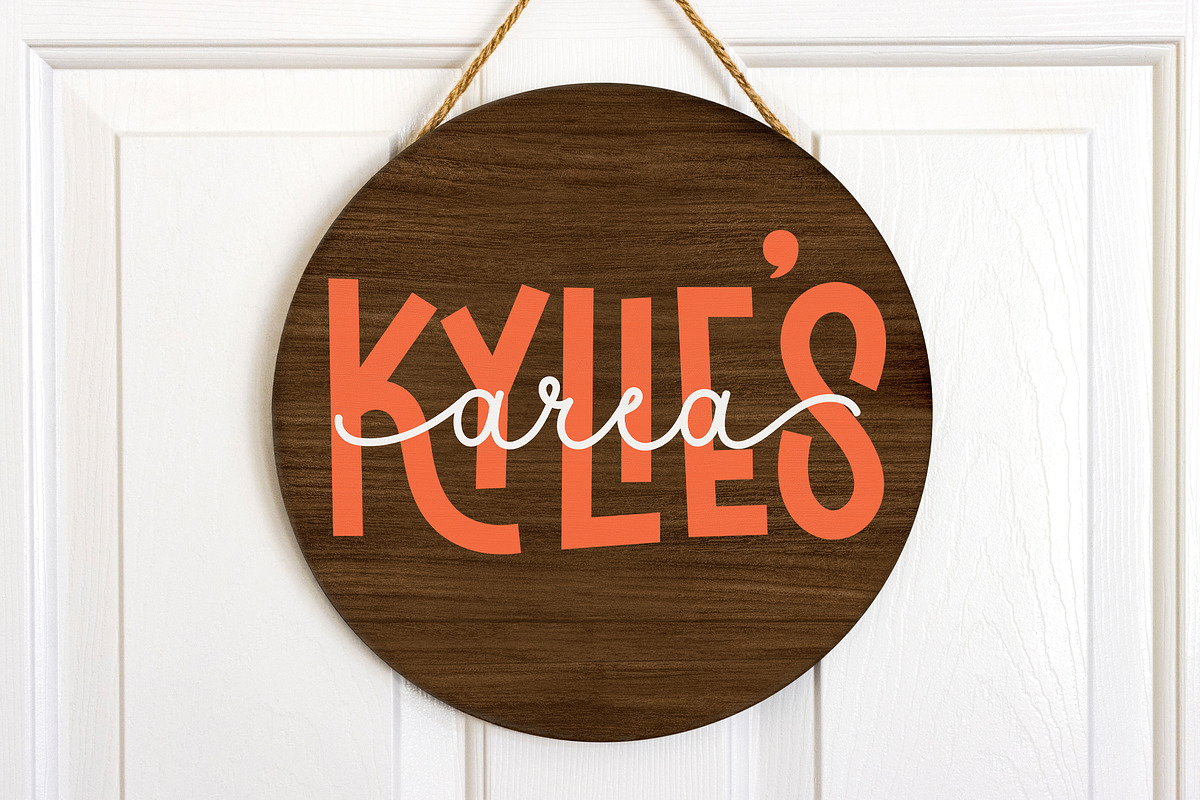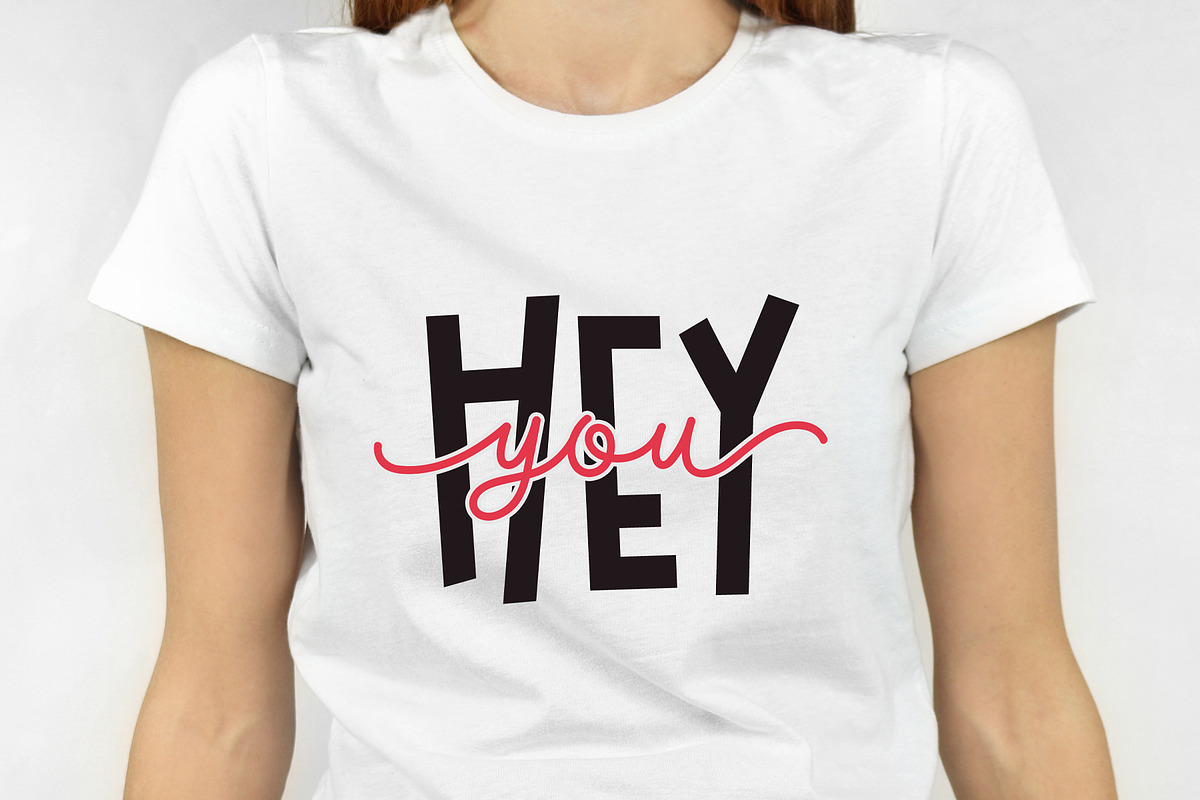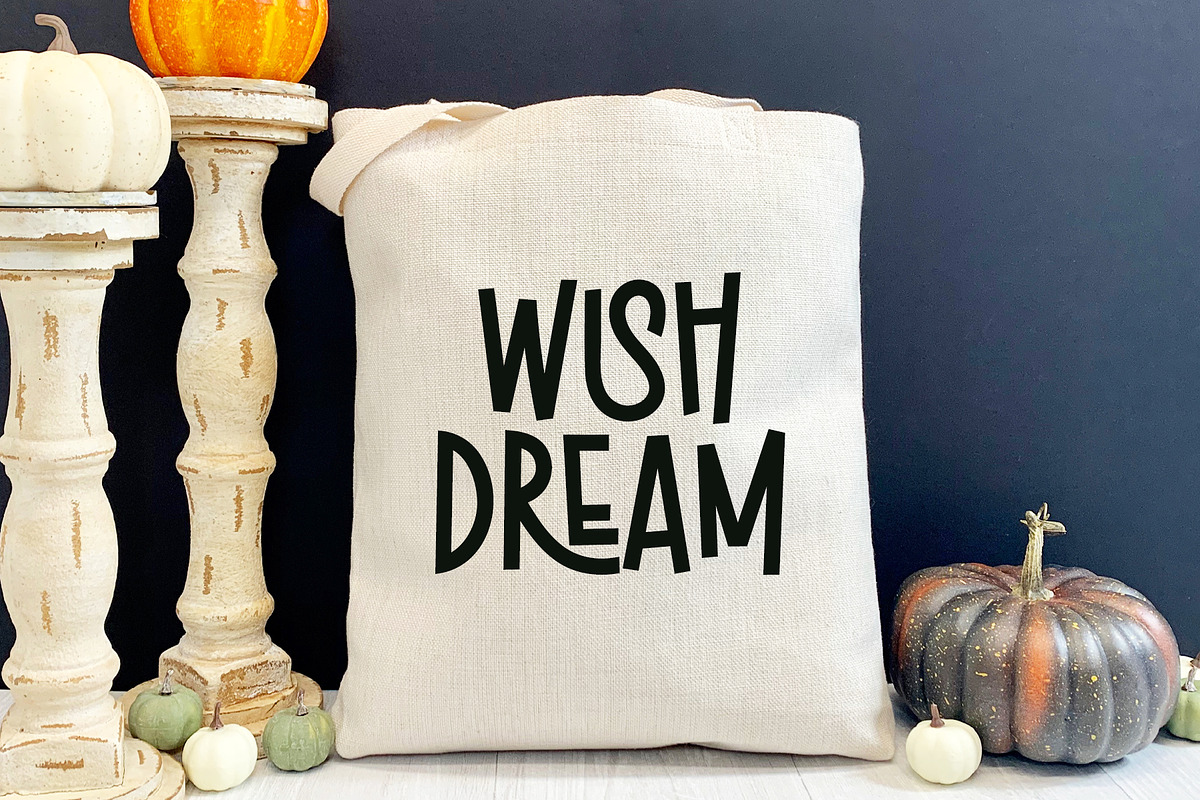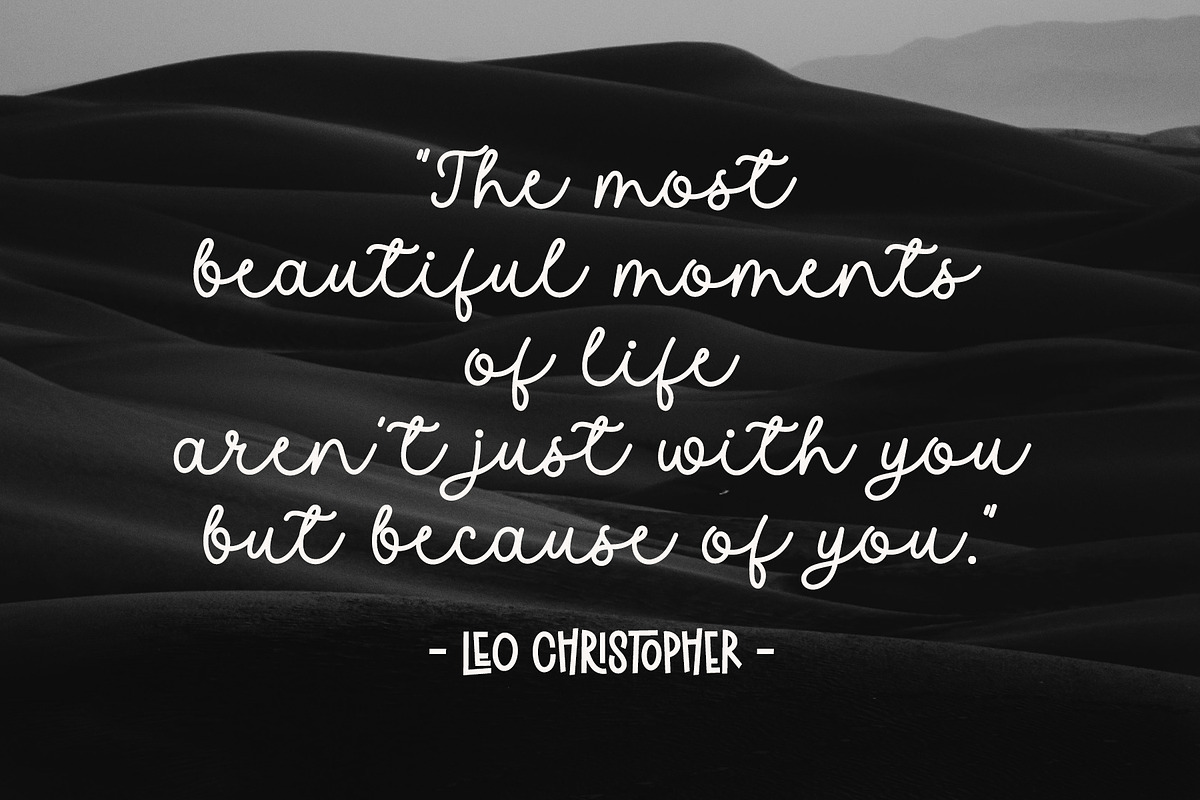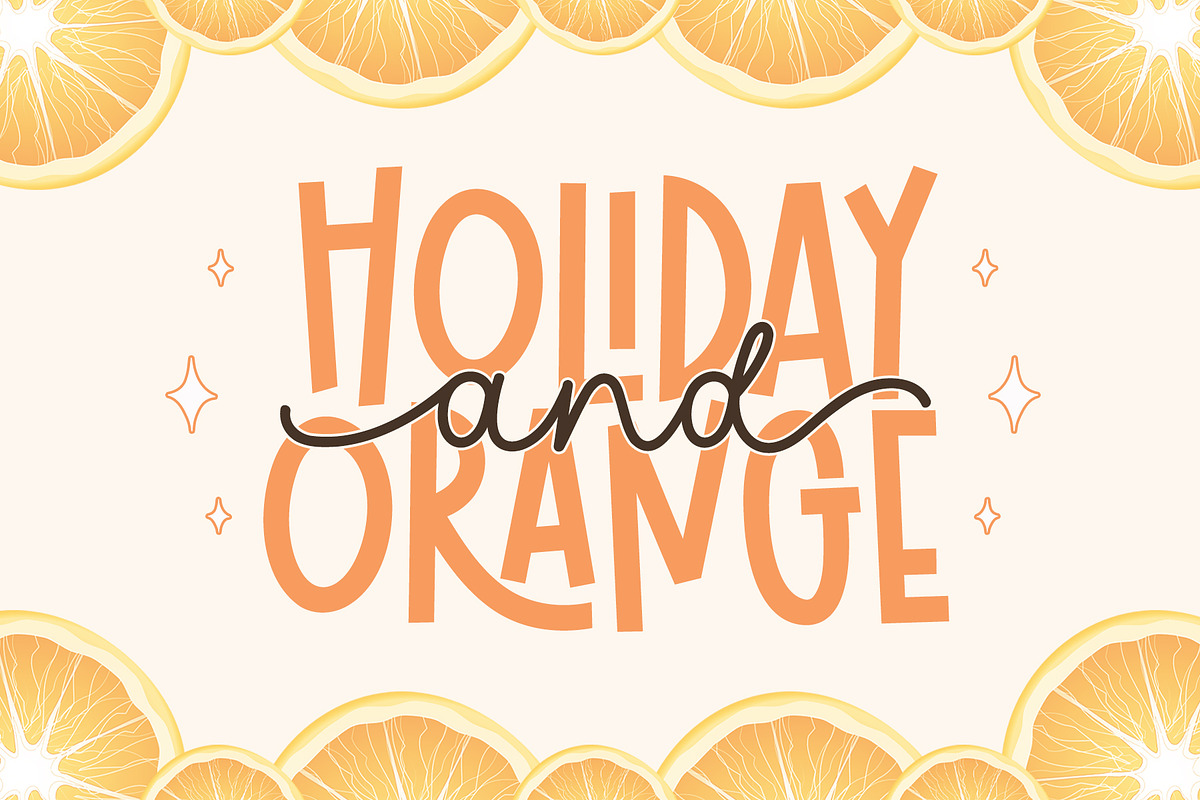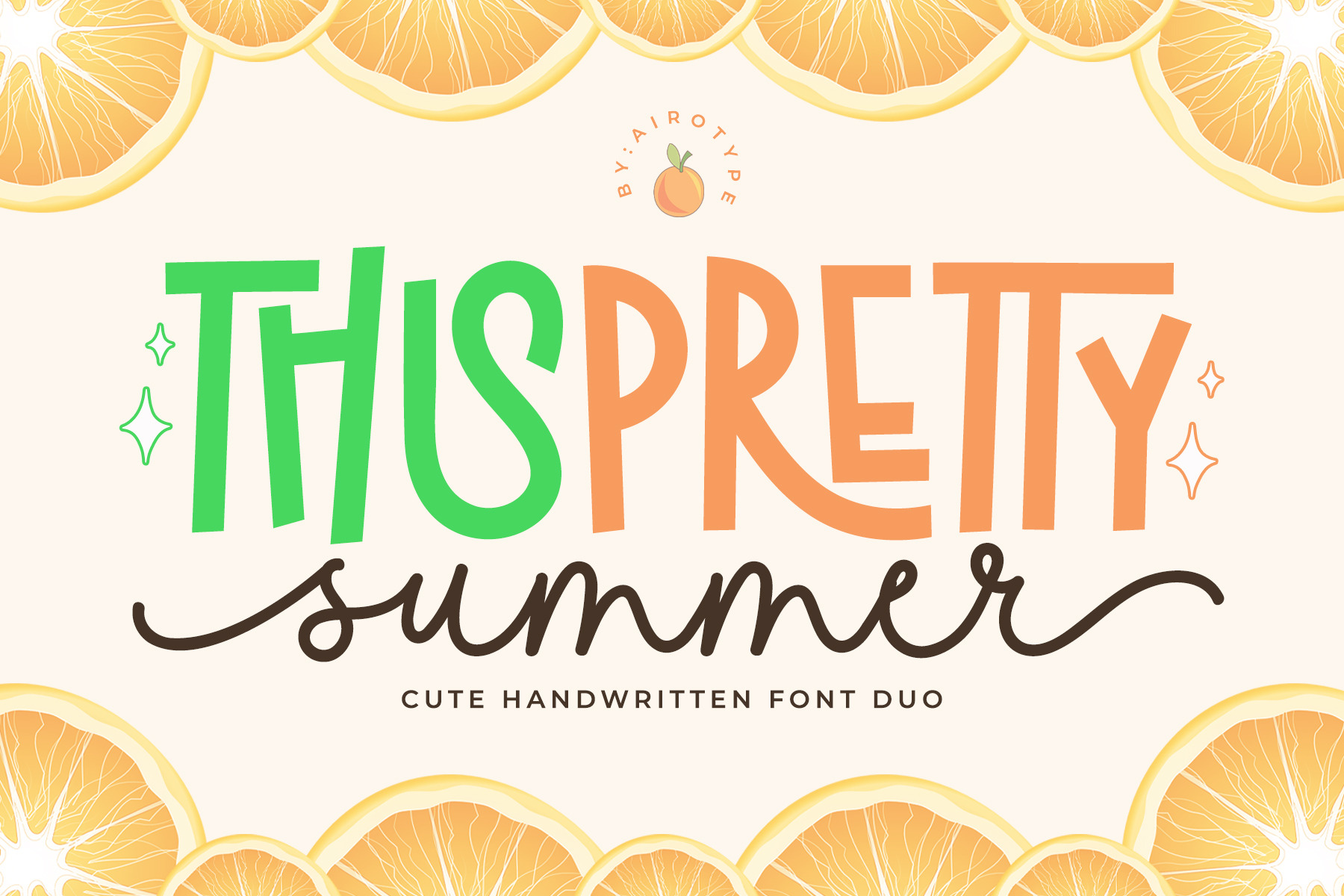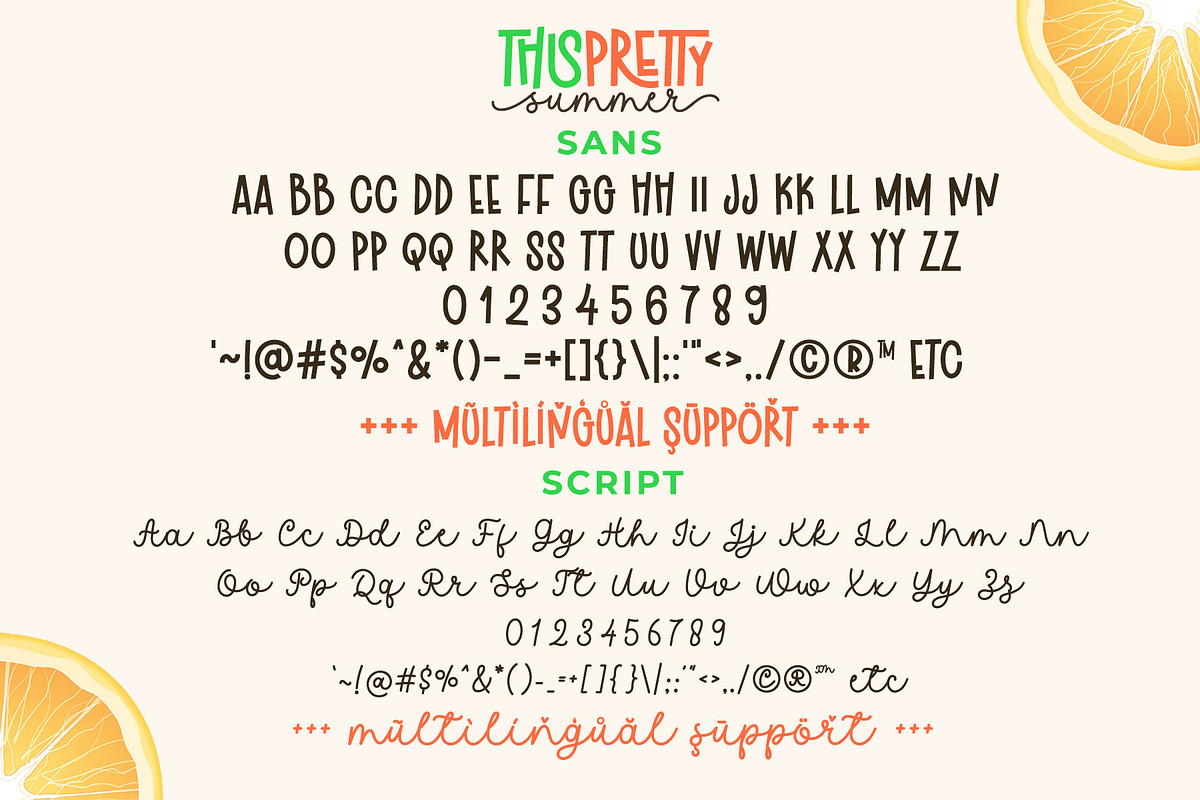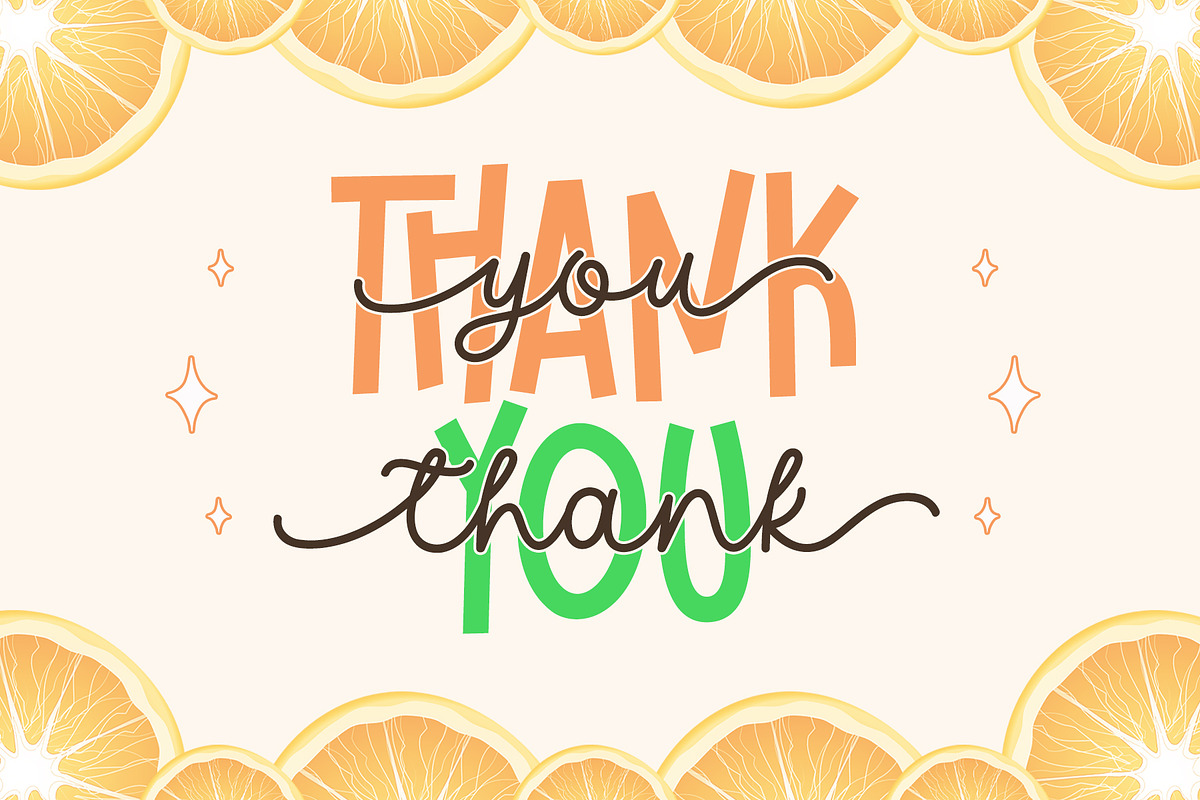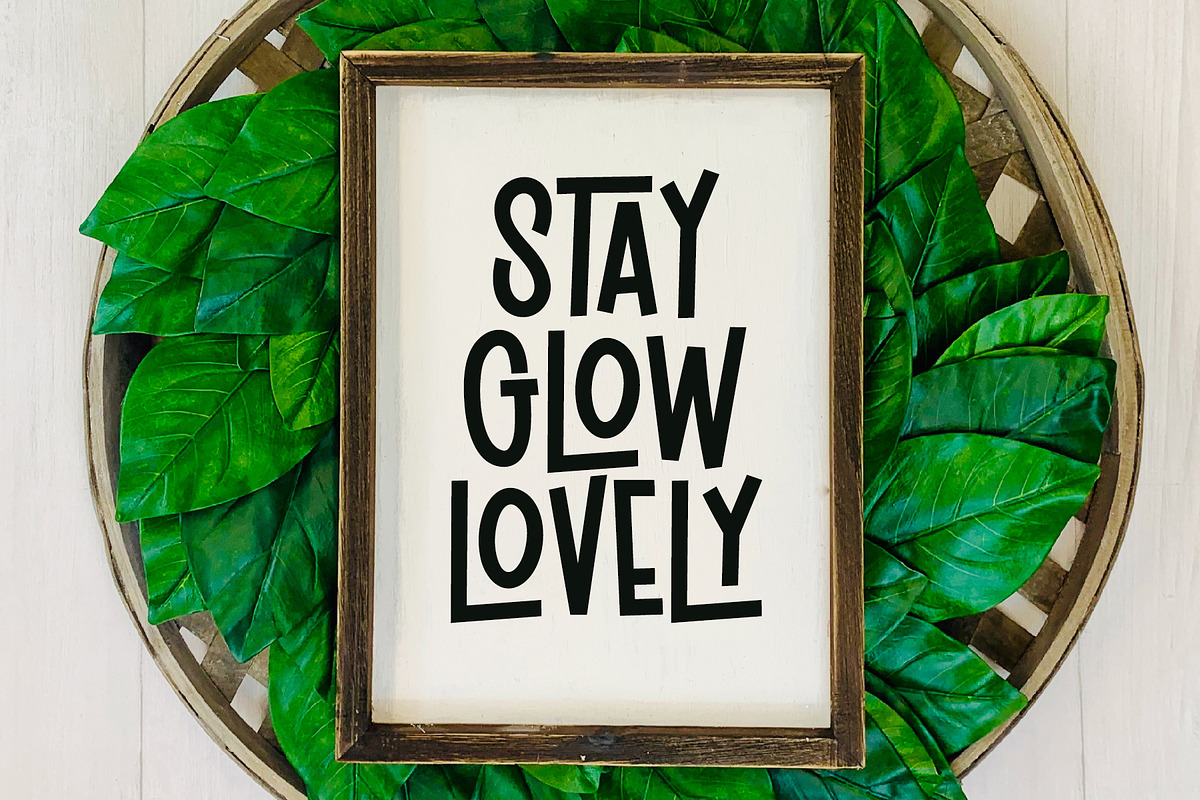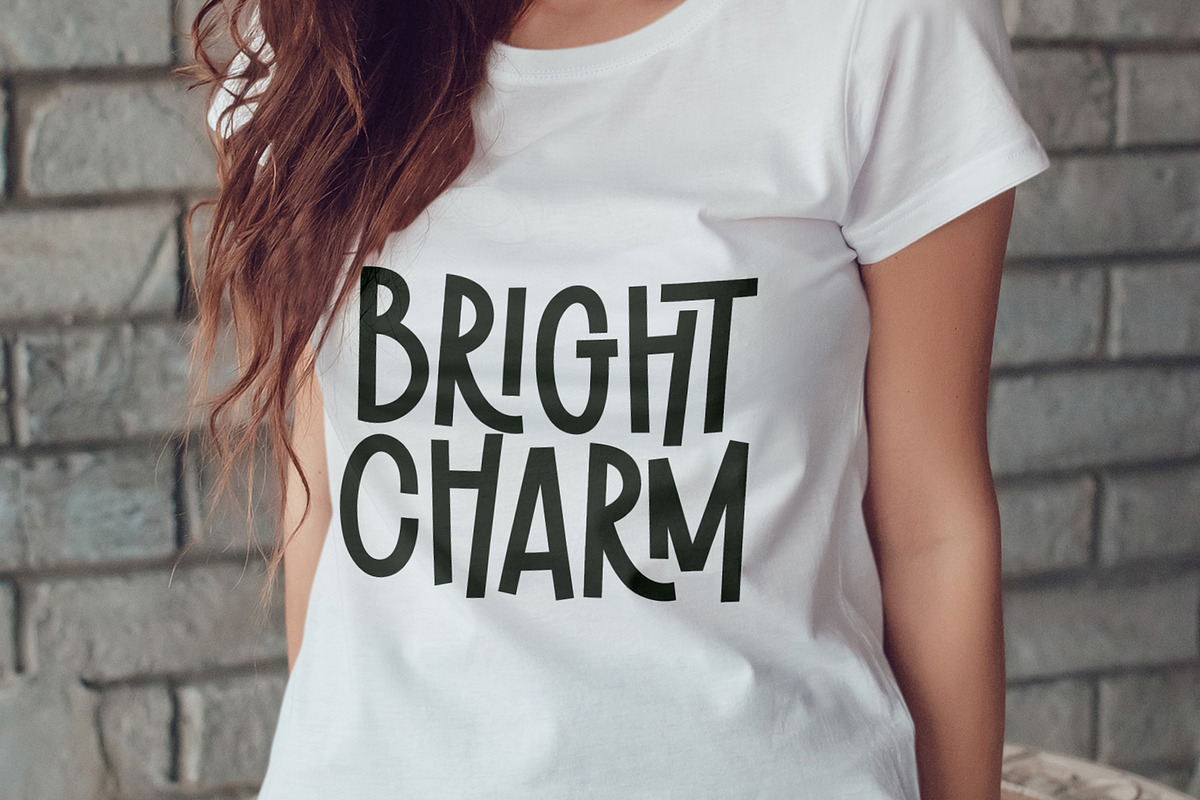
Pretty Summer - Cute Fonts Duo
Pretty Summer is cute, playful and fun font duo. Fonts can be used together, or in separate design.
The sans All caps font is having playful and cute touch. It has lots of ligatures that will give lots of options for designing.
The script is monoline handwritten, with swash in front and back. It can be elegant and cute.
This font is perfect for design that needs cute and playful touch, such as wedding design, invitation, birthday, t-shirt design, crafting, sticker, sublimation, and many more.
- Uppercase & Lowercase (include ligature and swash)
- Most Multilingual Accent